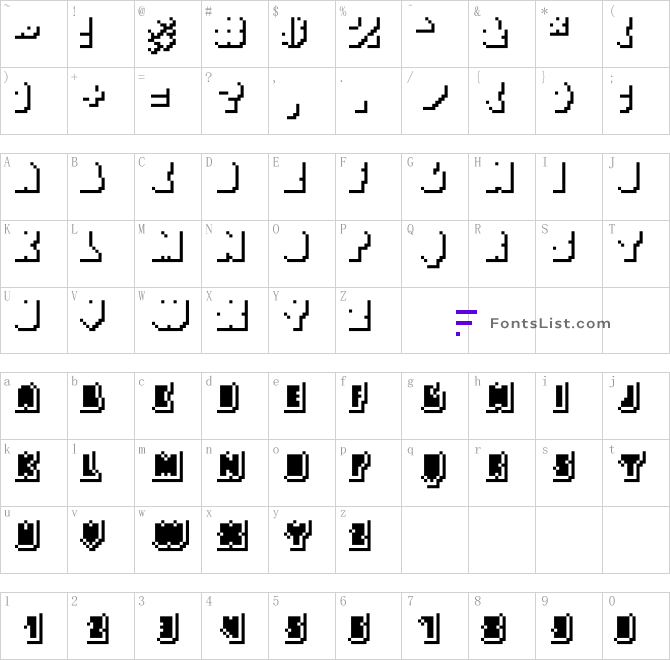
- Font Name:ApplyBeefShadow
ApplyBeefShadow.ttf is a very beautiful artistic font, ApplyBeefShadow.ttf is widely used in the design and printing of various books and pictures,ApplyBeefShadow.ttf has a strong visual impact,ApplyBeefShadow.ttf is a commonly used font in newspapers, magazines and books, and is used in posters, e-commerce Poster design, store design, logo design, font design and other fields.ApplyBeefShadow.